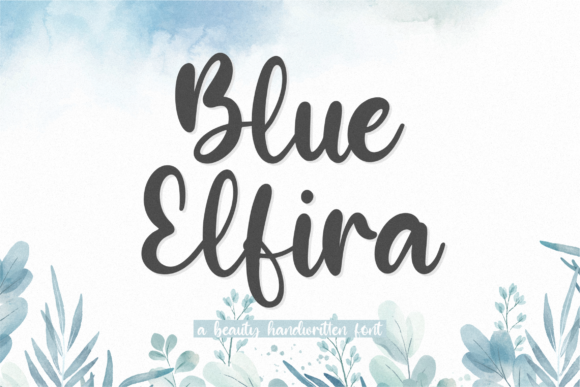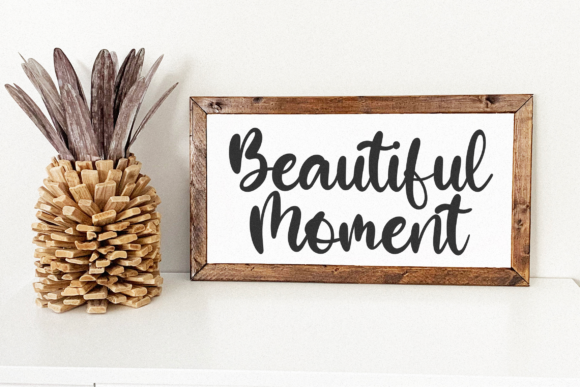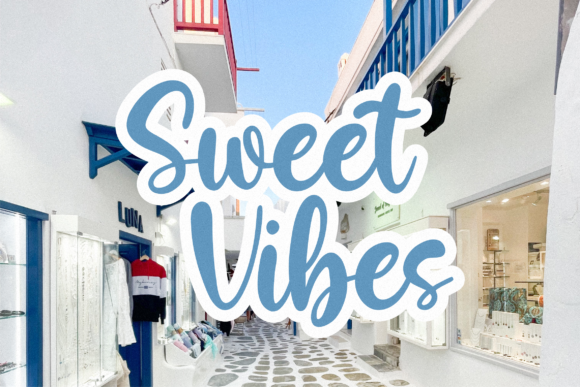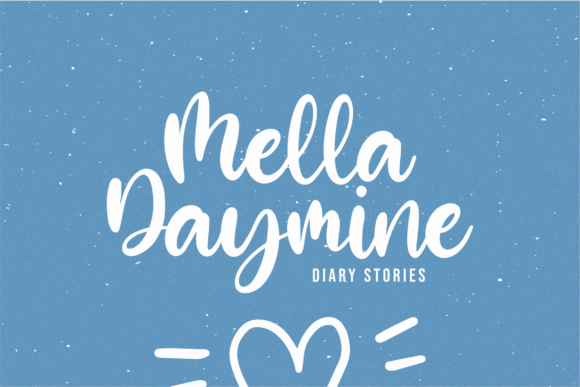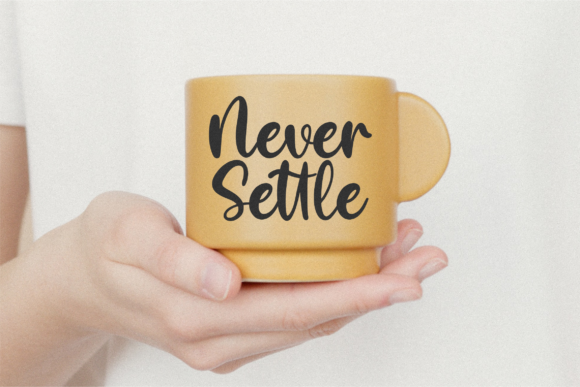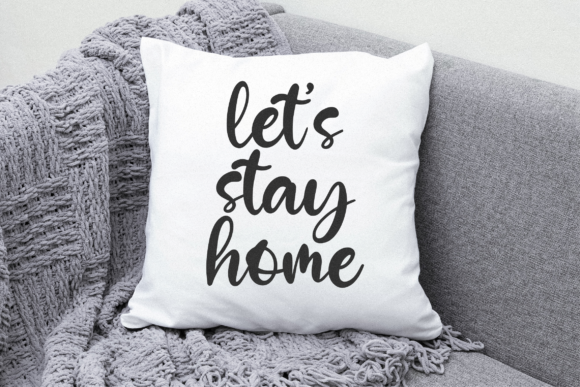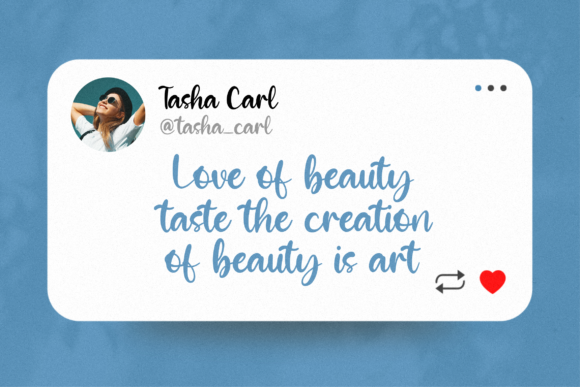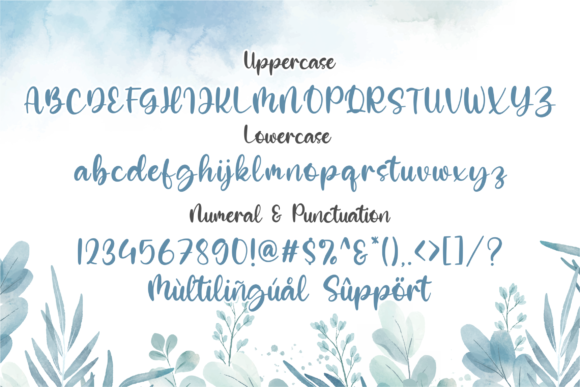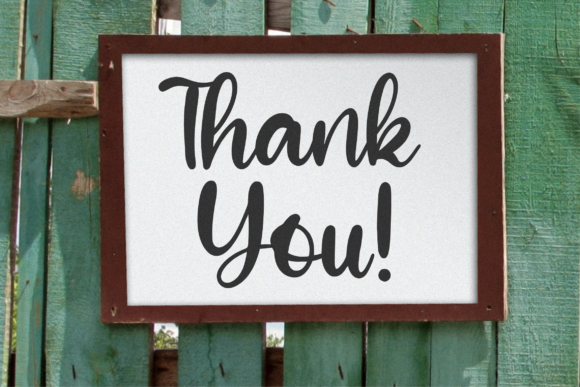
Blue Elfira Font
About Blue Elfira Font
Blue Elfira is a sweet and delicate handwritten font. Dainty and joyful, this font will be ideal for writing wedding invitations, cards or any other design that may need a romantic, personalized touch!